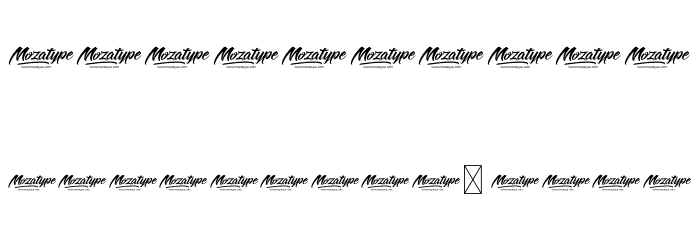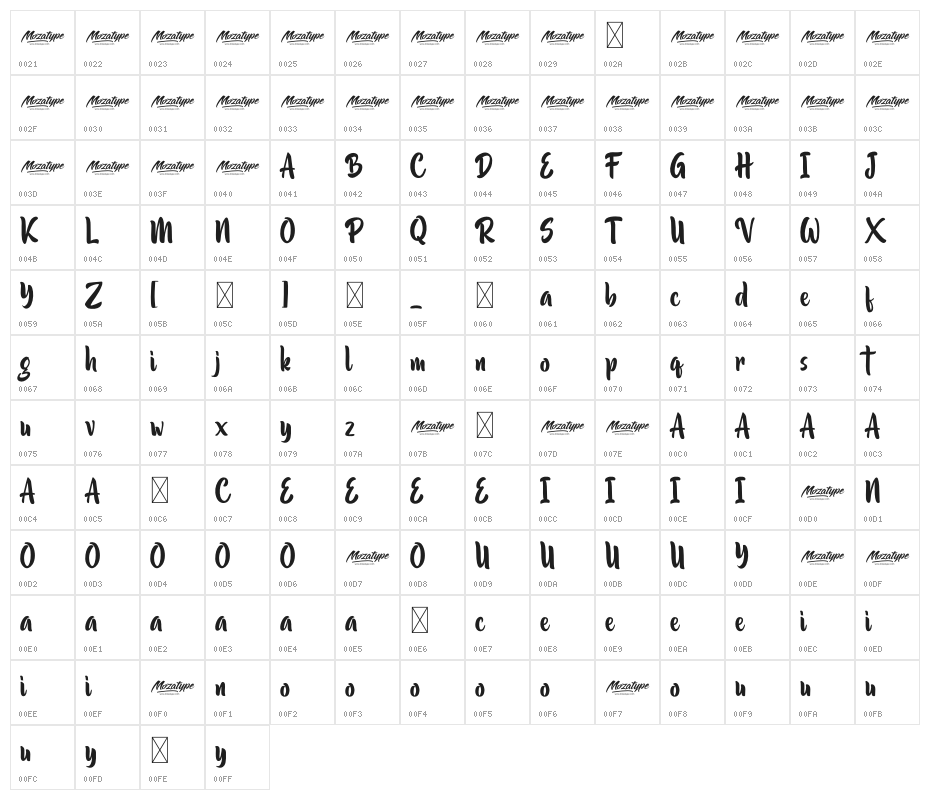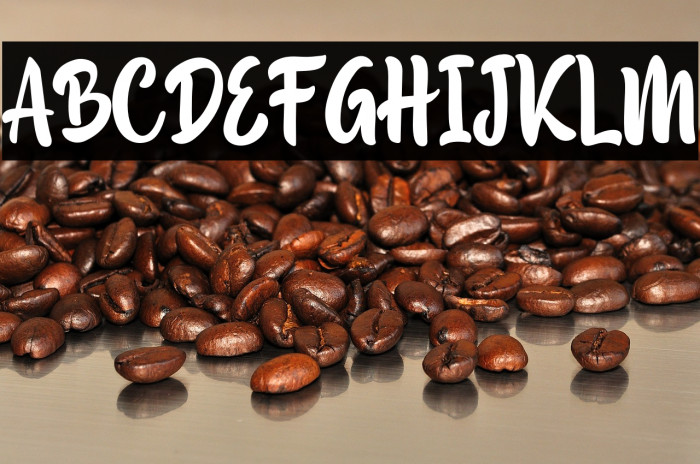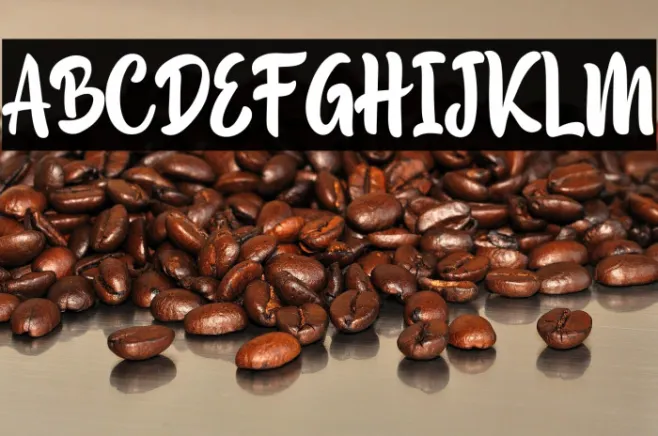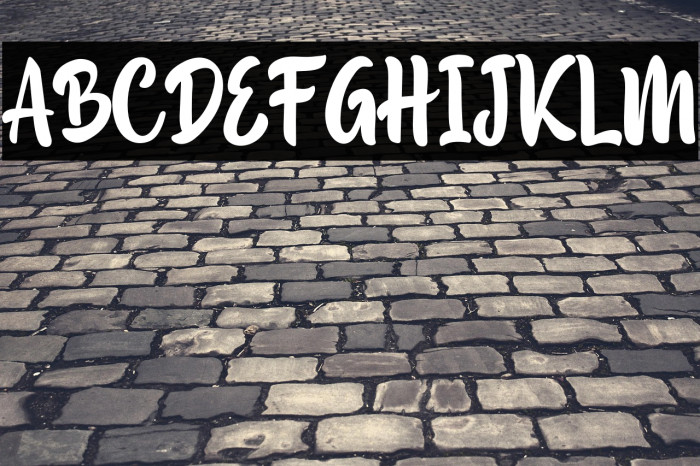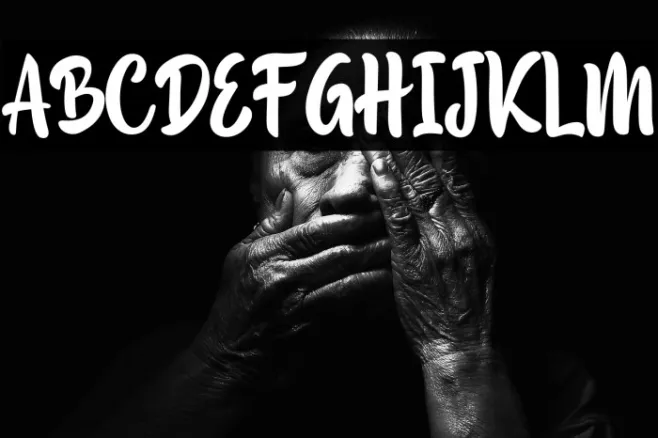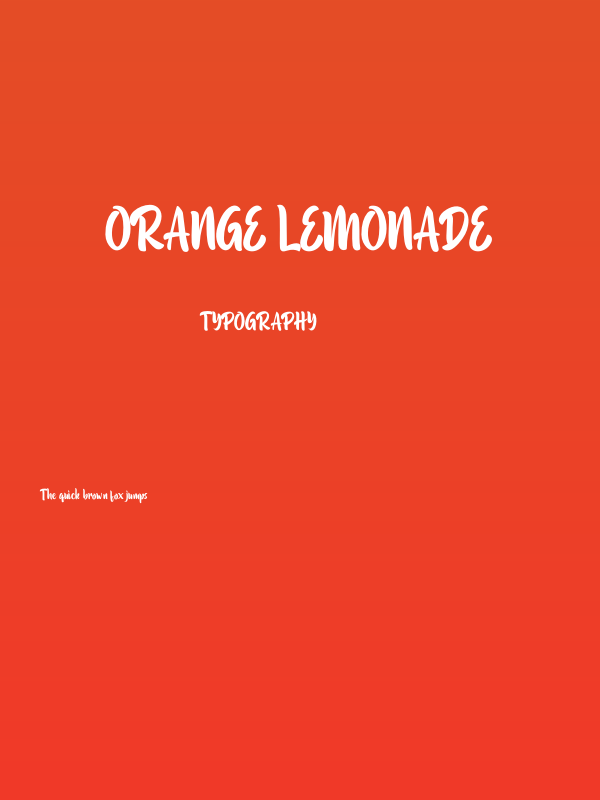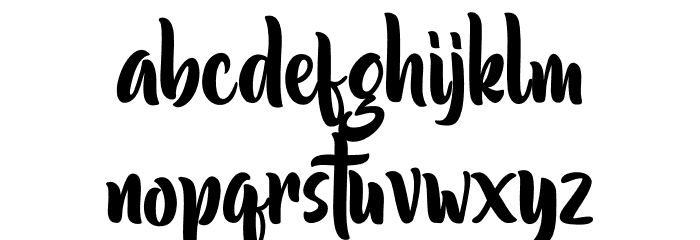
Orange Lemonade Font
Orange Lemonade Description
This font exhibits a playful and energetic style, characterized by its bold, flowing script. The letters are interconnected, creating a sense of movement and fluidity. The uppercase letters are slightly larger and more pronounced, while the lowercase letters maintain a consistent flow. The strokes are thick and rounded, giving the font a friendly and approachable appearance. The overall design is reminiscent of hand-lettered signage, making it suitable for projects that require a personal touch. Its unique style is both eye-catching and versatile, perfect for creative applications.
| Proposed Projects | Ideal for branding, packaging, invitations, and social media graphics. |